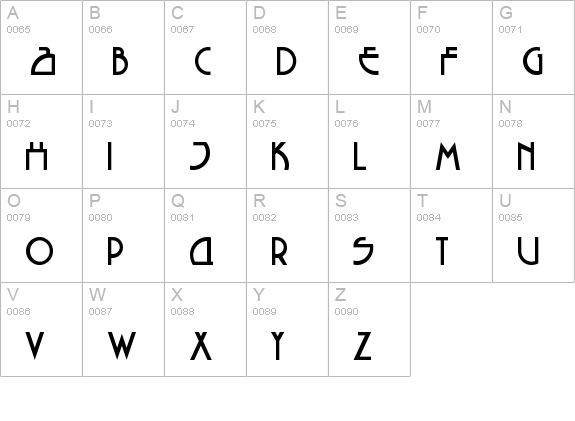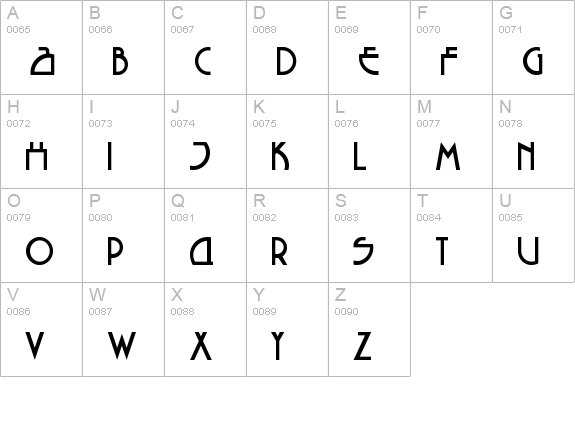
Seized Future Font Details
Seized Future font is a futuristic typeface that encapsulates the essence of technological advancement and innovation. Its sleek and modern design exudes a sense of sophistication, making it perfect for various design projects that seek to convey a cutting-edge aesthetic. This font features bold and sharp lines, giving each character a strong presence and commanding attention. The unique combination of geometric shapes and intricate details creates a captivating visual appeal, making Seized Future font stand out from the crowd. Whether you're designing a website, creating eye-catching advertisements, or crafting a logo for a tech startup, Seized Future font will effortlessly elevate your project to new heights. Its versatility allows it to be used in a wide range of contexts, ensuring that it remains a timeless choice for designers seeking a bold and modern typeface. And the best part? Seized Future font is available for free download at FontsMarket.com. This means that you can easily access this remarkable font without breaking the bank. With just a few clicks, you can enhance your design toolkit and unlock the creative potential that Seized Future font has to offer. So, why wait? Embrace the future and add a touch of sophistication to your designs with Seized Future font. Download it for free at FontsMarket.com and embark on a journey of endless possibilities.